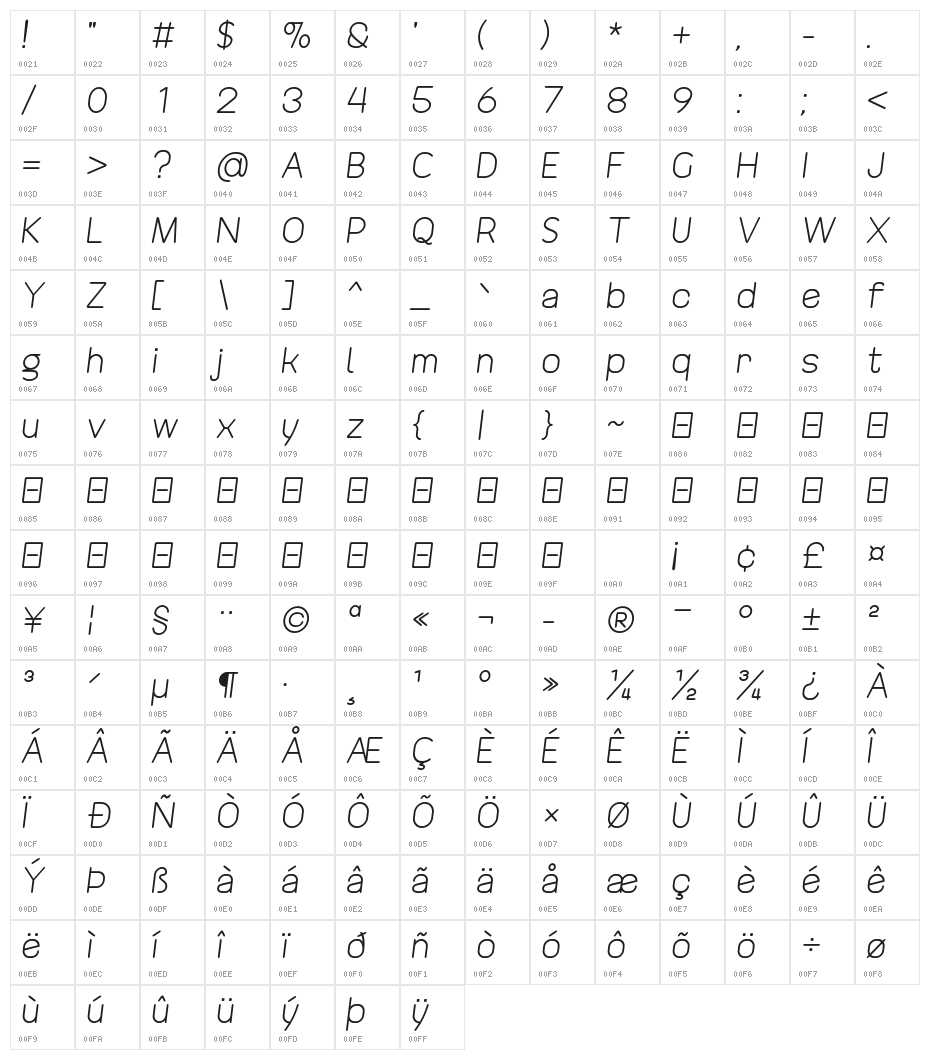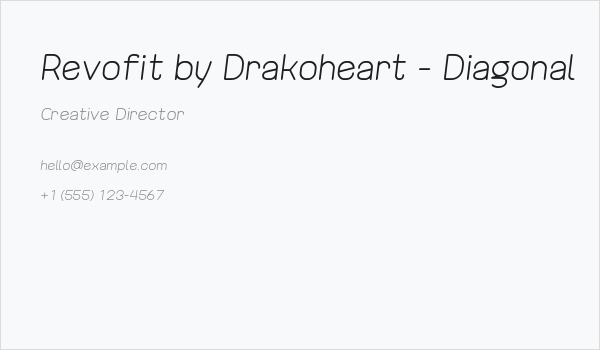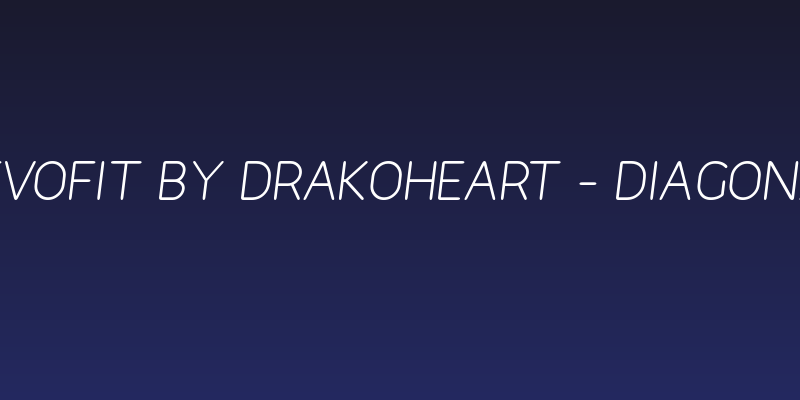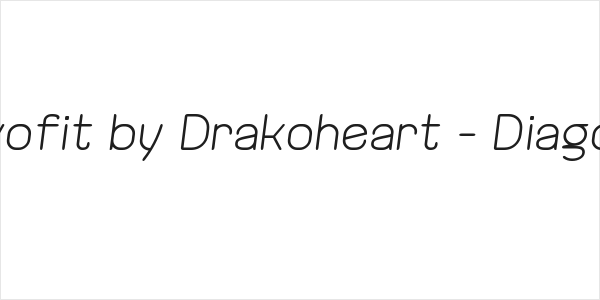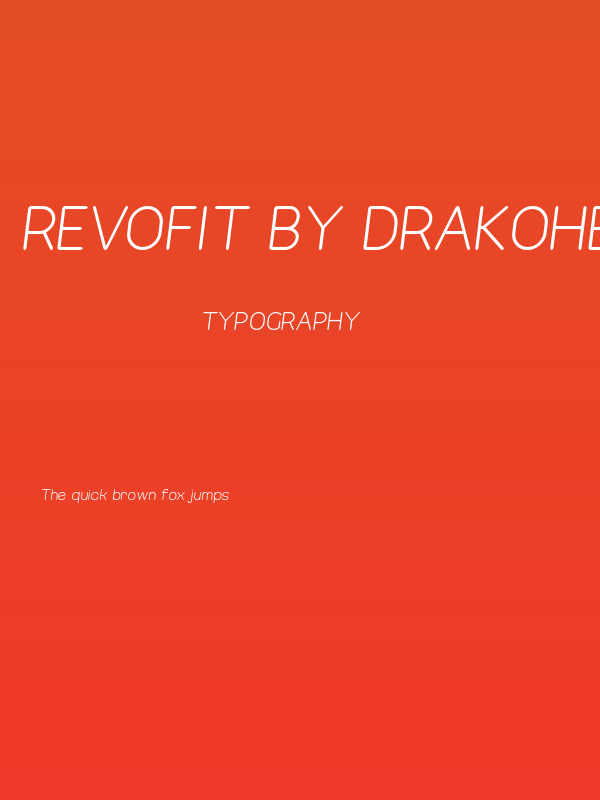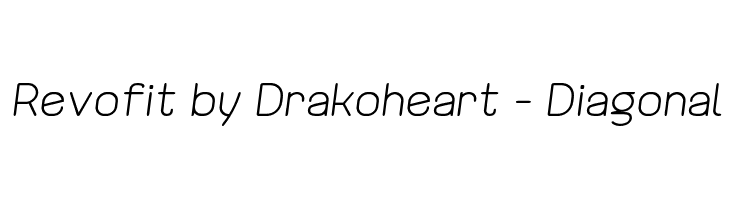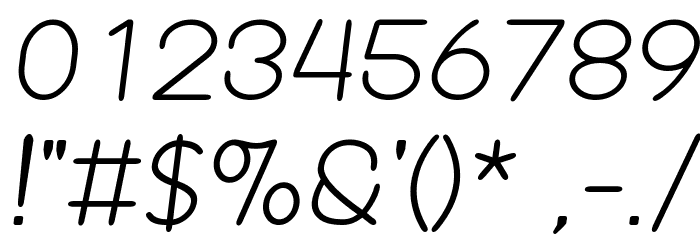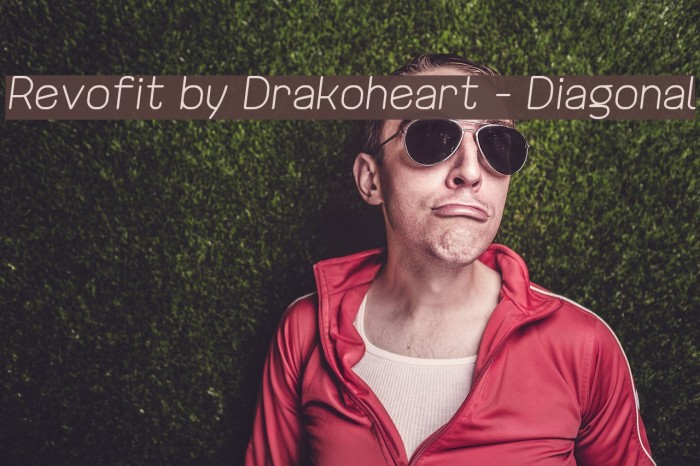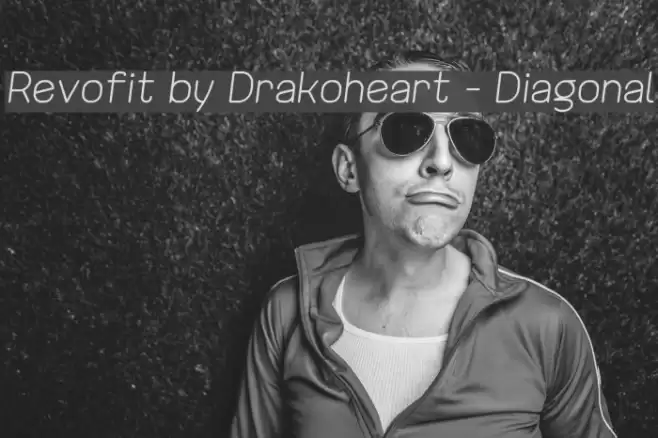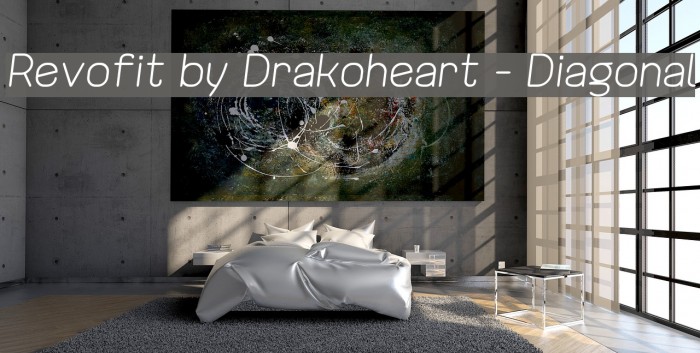
Revofit by Drakoheart - Diagonal Font
Revofit by Drakoheart - Diagonal Description
This font features a sleek and modern design with a diagonal slant that gives it a dynamic and forward-moving appearance. The characters are uniformly thin, providing a clean and minimalist look. The uppercase and lowercase letters maintain a consistent style, with rounded edges that soften the overall aesthetic. Numbers and special characters are designed to match the letterforms, ensuring a cohesive appearance across all text. The font's simplicity and elegance make it versatile for various design applications.
| Use Case | Headlines, Body text, Logos |
| Proposed Projects | Ideal for branding, modern web design, tech-related projects, and minimalist posters. |